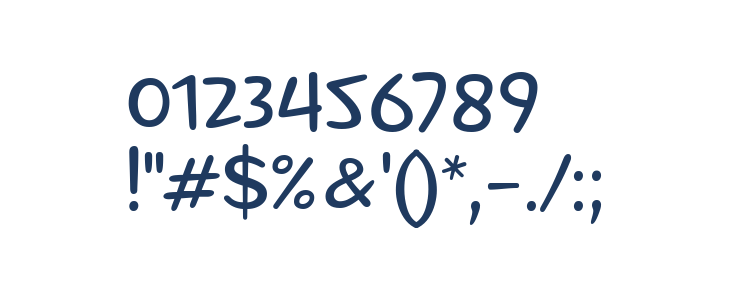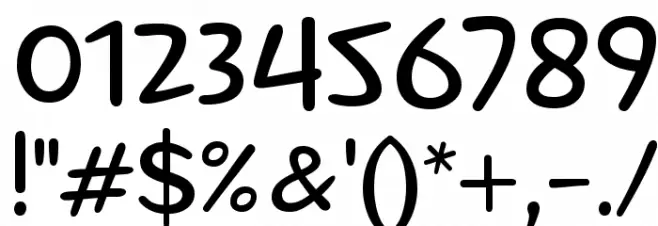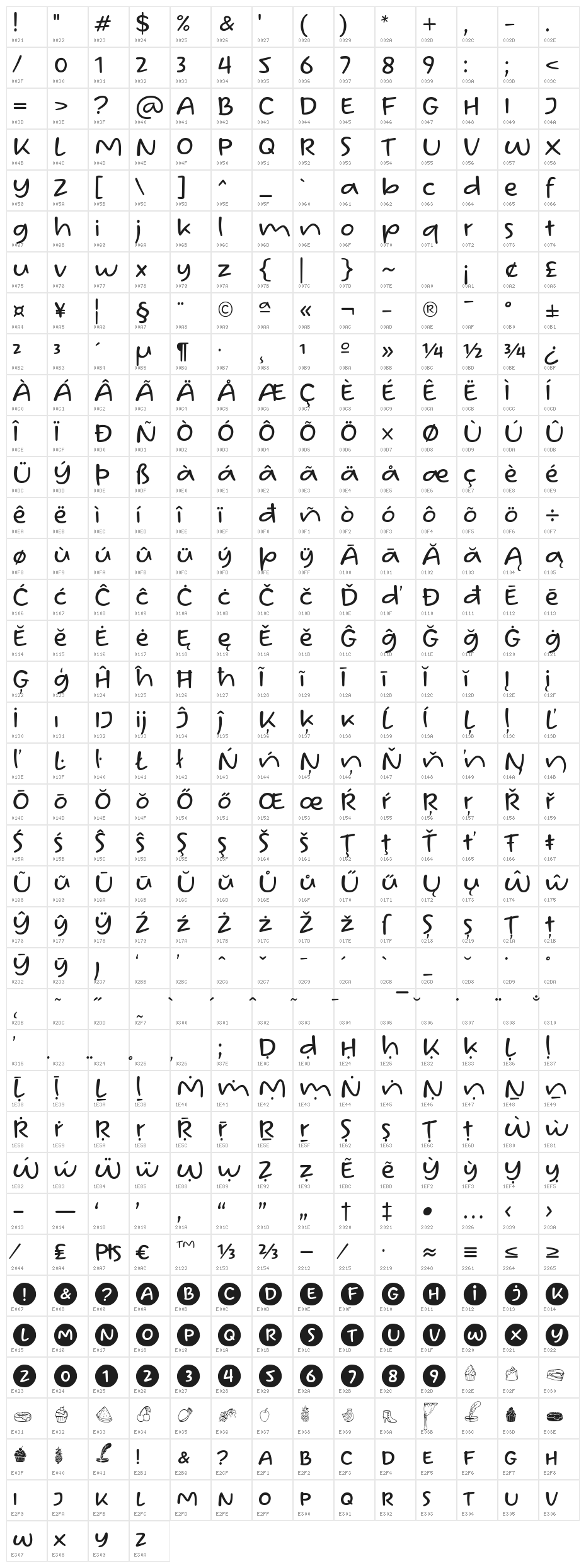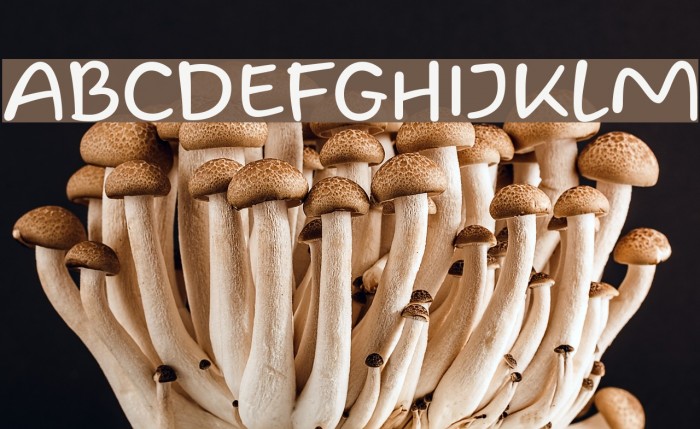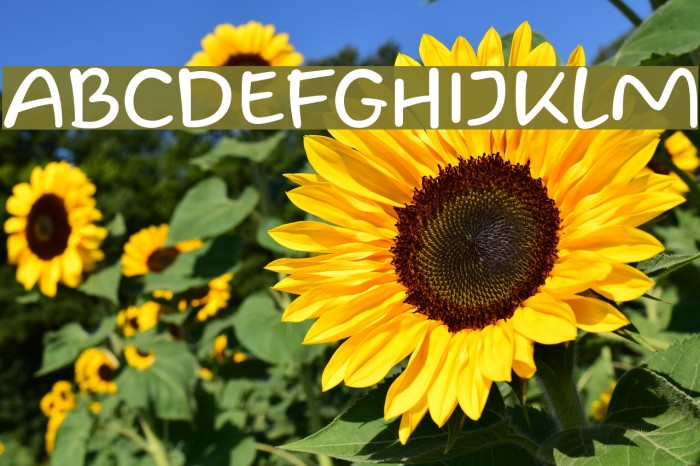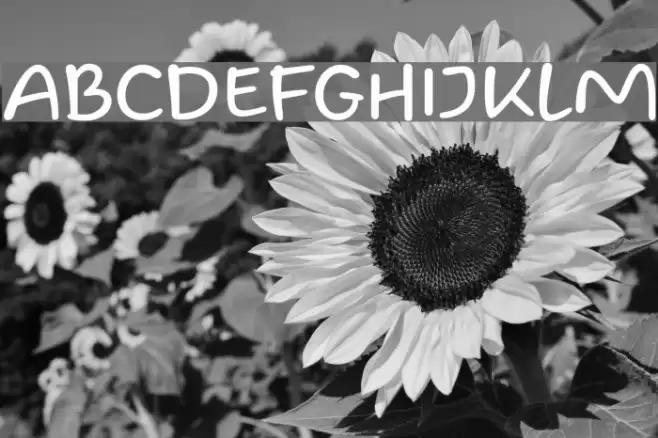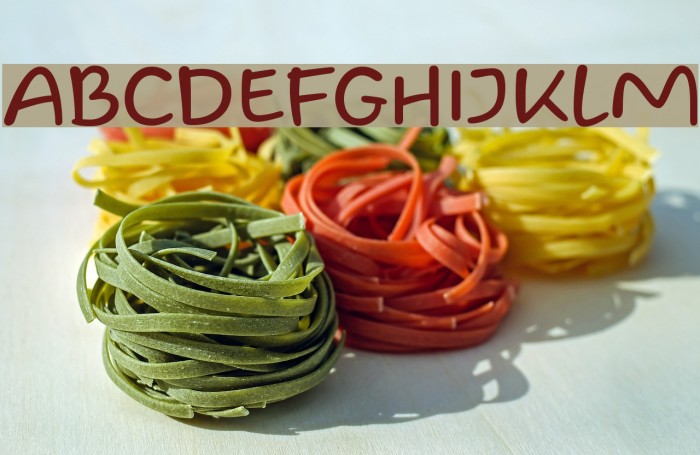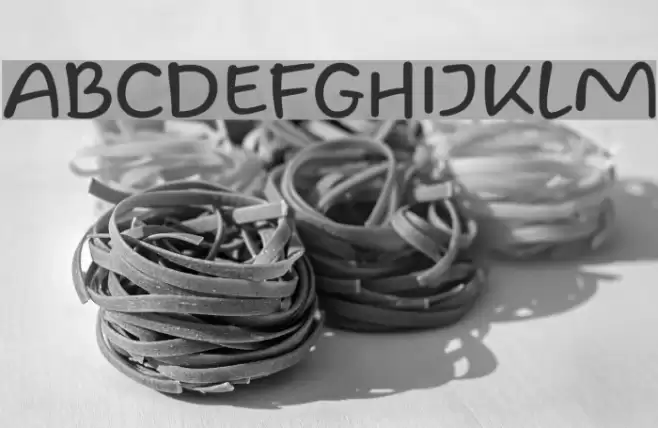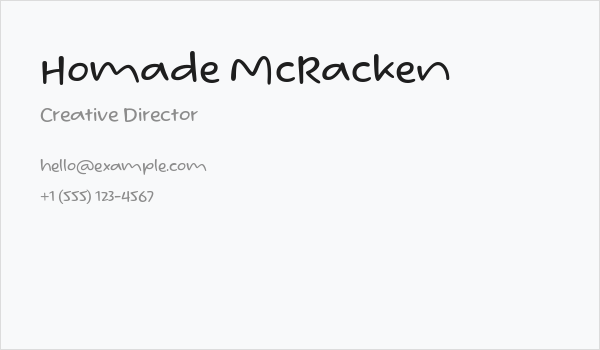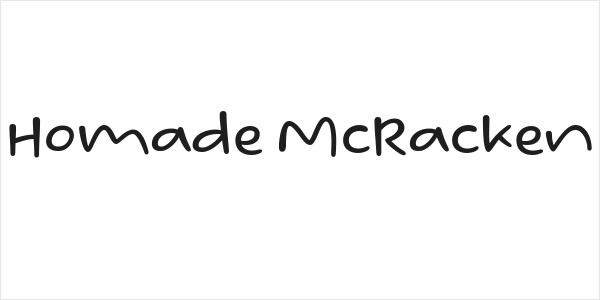
Homade McRacken Font
Homade McRacken Description
This playful and informal font features a handwritten style with smooth, rounded edges and a casual flow. The characters are slightly slanted, giving a sense of movement and energy. The uppercase and lowercase letters maintain a consistent style, with the lowercase letters being slightly smaller and more compact. Numbers and special characters are designed to match the overall aesthetic, ensuring a cohesive look. The font's friendly and approachable appearance makes it suitable for a variety of creative projects.
| Proposed Projects | Ideal for greeting cards, children's books, playful branding, and casual invitations. |